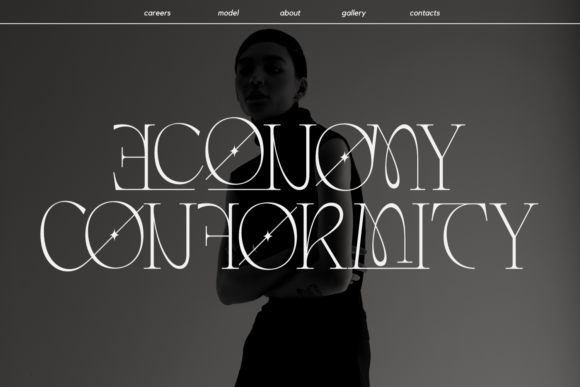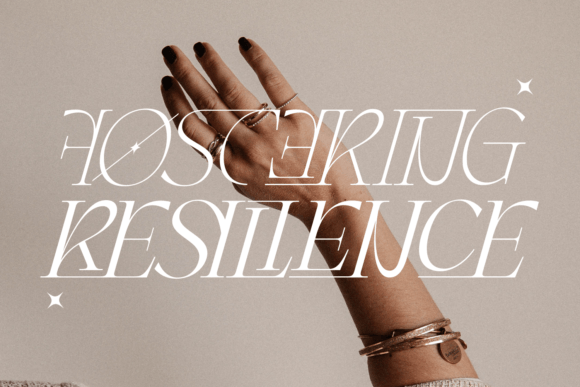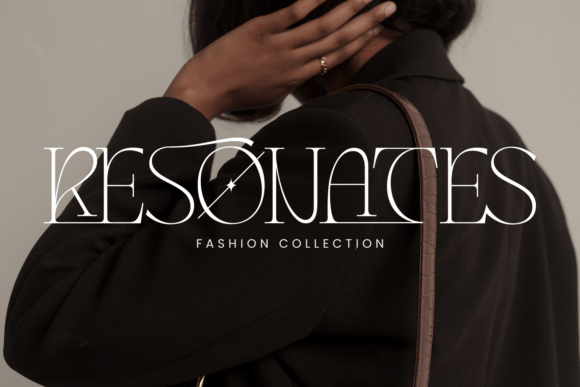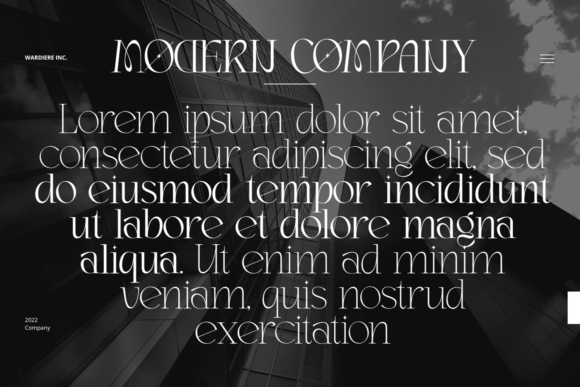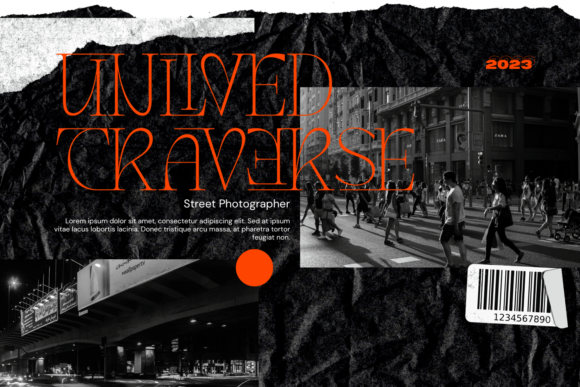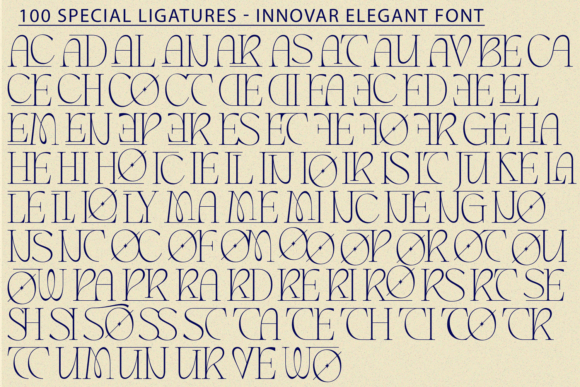
Introduction to Innovar Elegant Font
Innovar Elegant is an elegant serif font, that features a very delicate and classy look.
Not too thin and not too thick, balanced and varied, Innovar Elegant was designed to enhance the beauty of your projects .
Innovar Elegant Font offers exceptional quality and versatility, making it a valuable addition to your design toolkit. Whether you’re creating for personal projects or commercial use, Innovar Elegant Font delivers professional results.